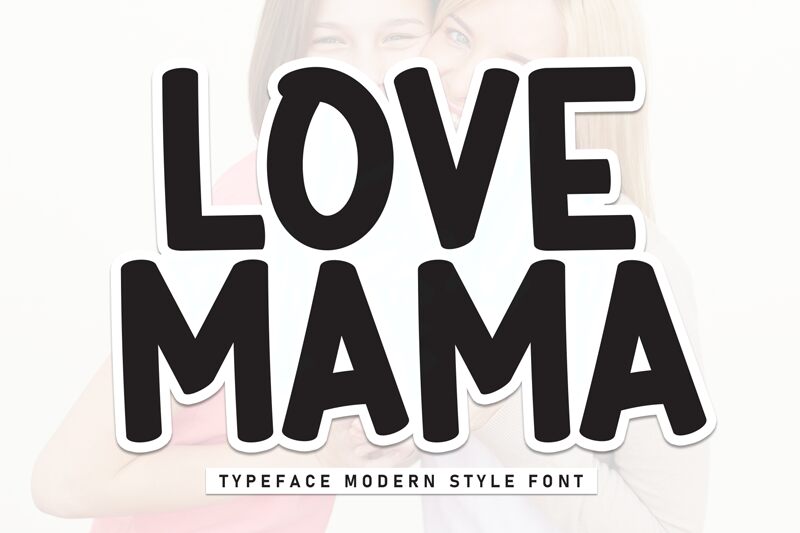
LOVE MAMA
Love Mama font with its handcrafted feel and retro influence is the perfect brush font for creative projects. Its round letters give off an approachable and friendly vibe that will easily connect with your audience. Bolded and clearly-visible, this font can be chosen as a main focal point or matched with another design resource.
Enjoy a free bold brush font in; branding designs, advertising, packaging, labels, invitations and greeting cards. Also consider it for bookmarks, gift boxes, book covers, magazines; to deliver headings or subheadings.